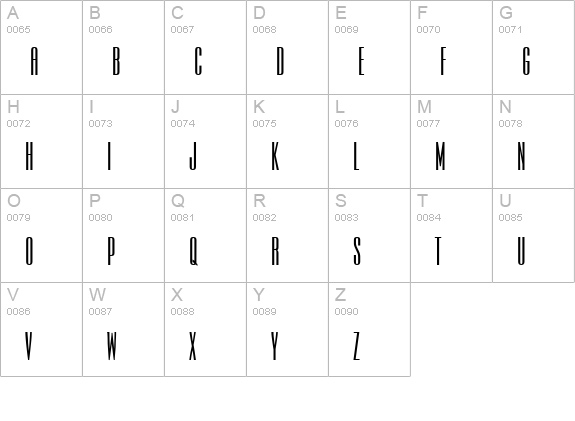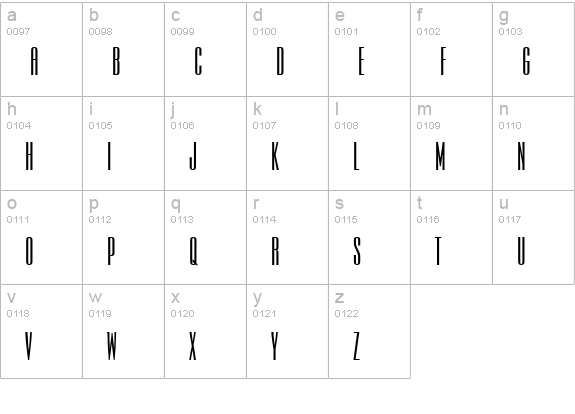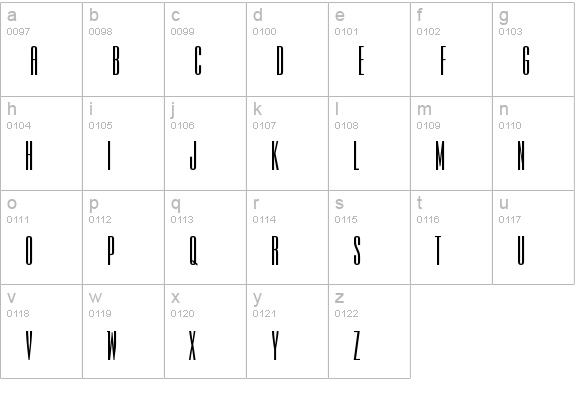
Expel Bold is a strong, high-contrast variant in the Expel typeface family \xE2\x80\x94 well suited to headlines, attention-grabbing titles, and strong calls-to-action.
Expel Bold font is a striking and modern typeface that demands attention with its bold and unique design. Perfect for making a statement in headlines, posters, and branding projects, this font exudes confidence and strength. With its sharp lines and powerful presence, Expel Bold is sure to captivate your audience and leave a lasting impression. The best part? Expel Bold font is available for free download at FontsMarket.com, allowing you to add this impactful typeface to your design arsenal without breaking the bank. Don't miss out on the opportunity to elevate your projects with the bold and dynamic style of Expel Bold font - download it today and unleash your creativity!